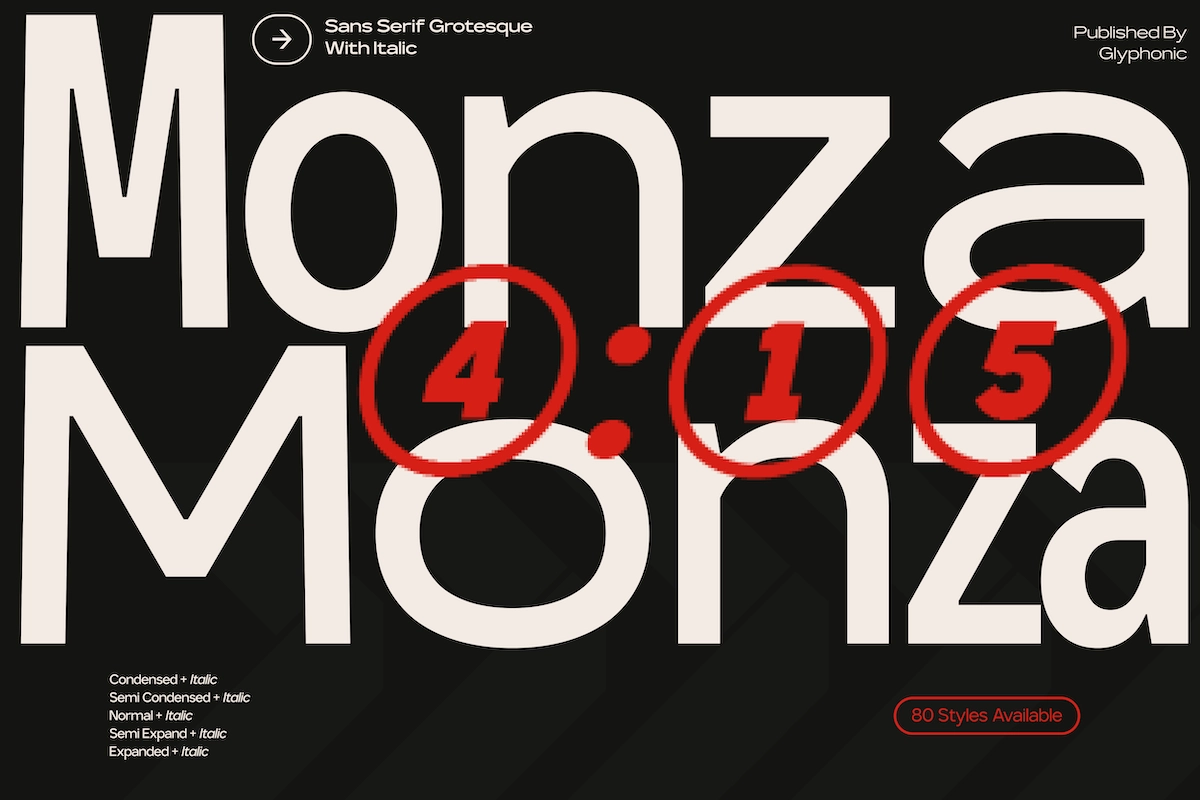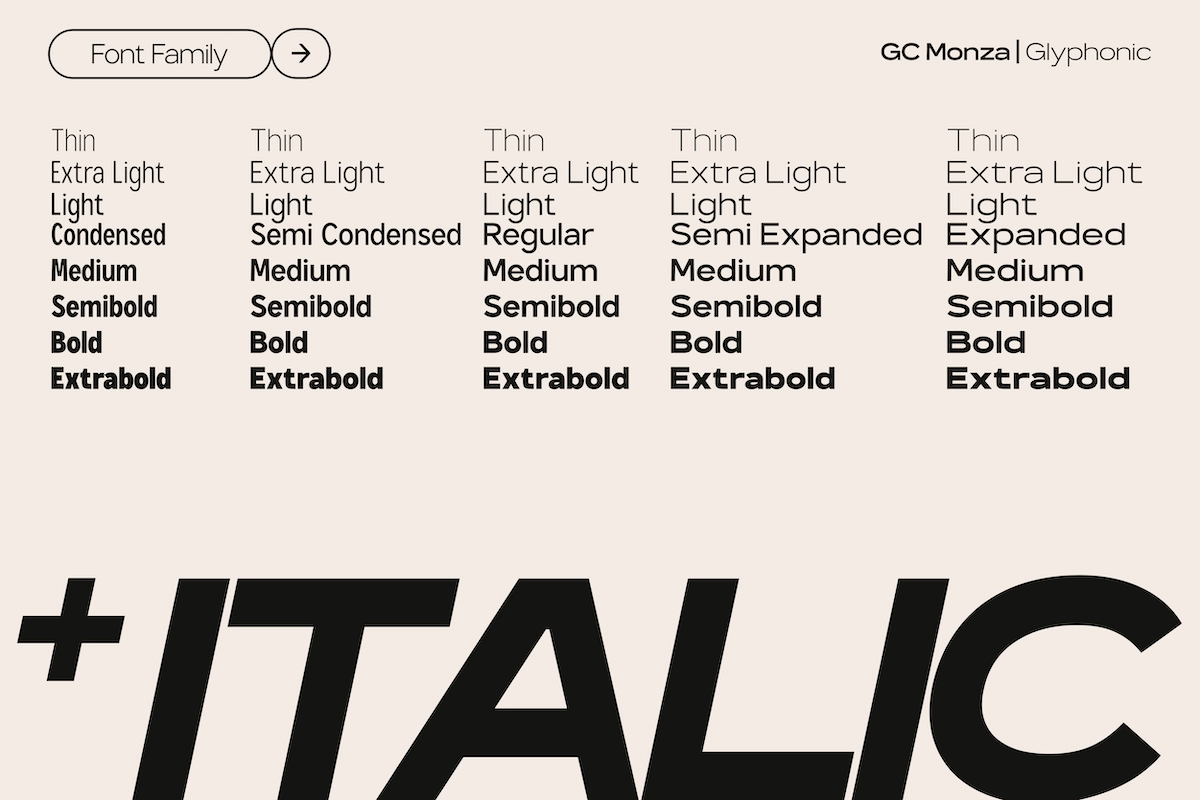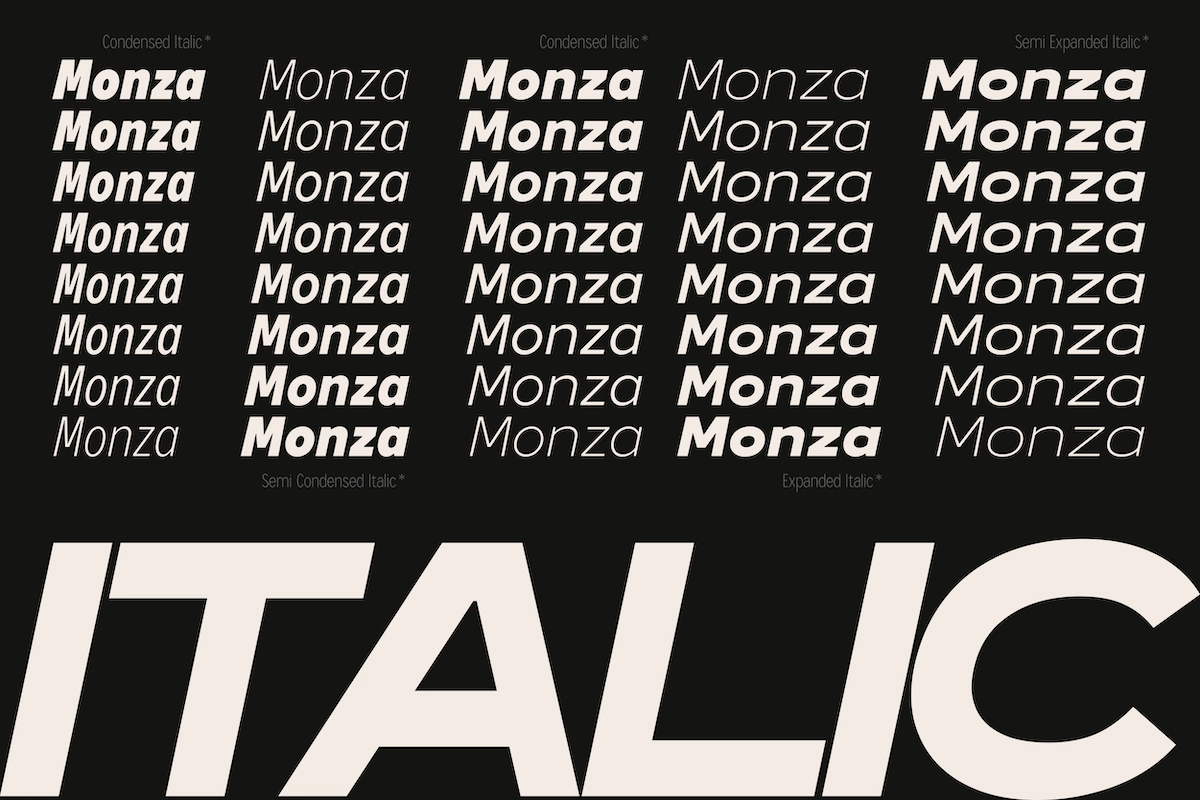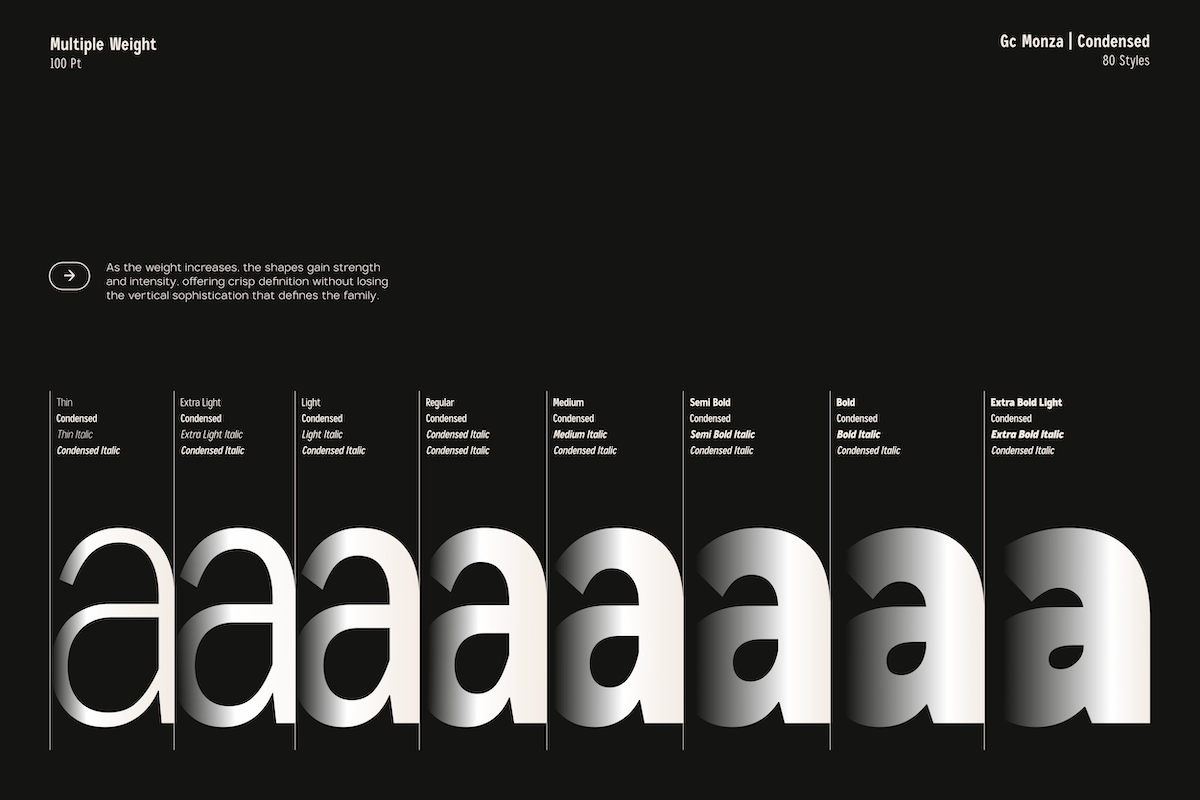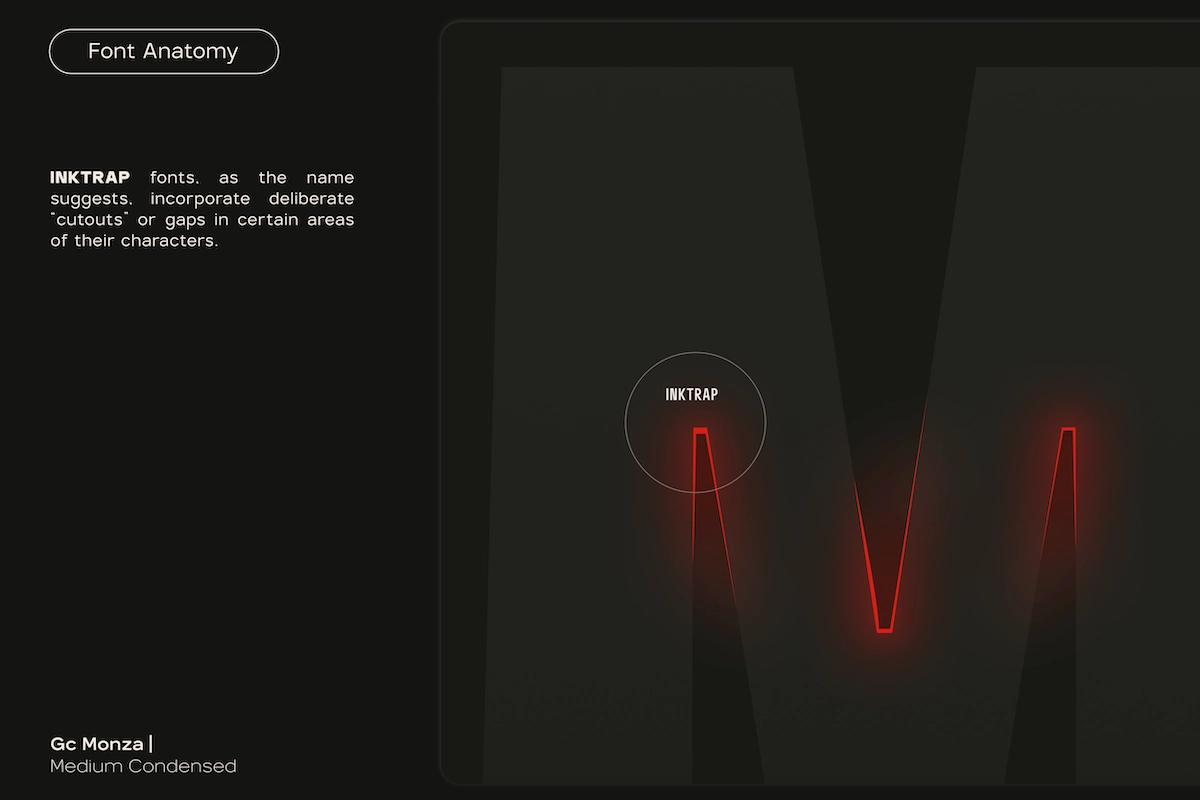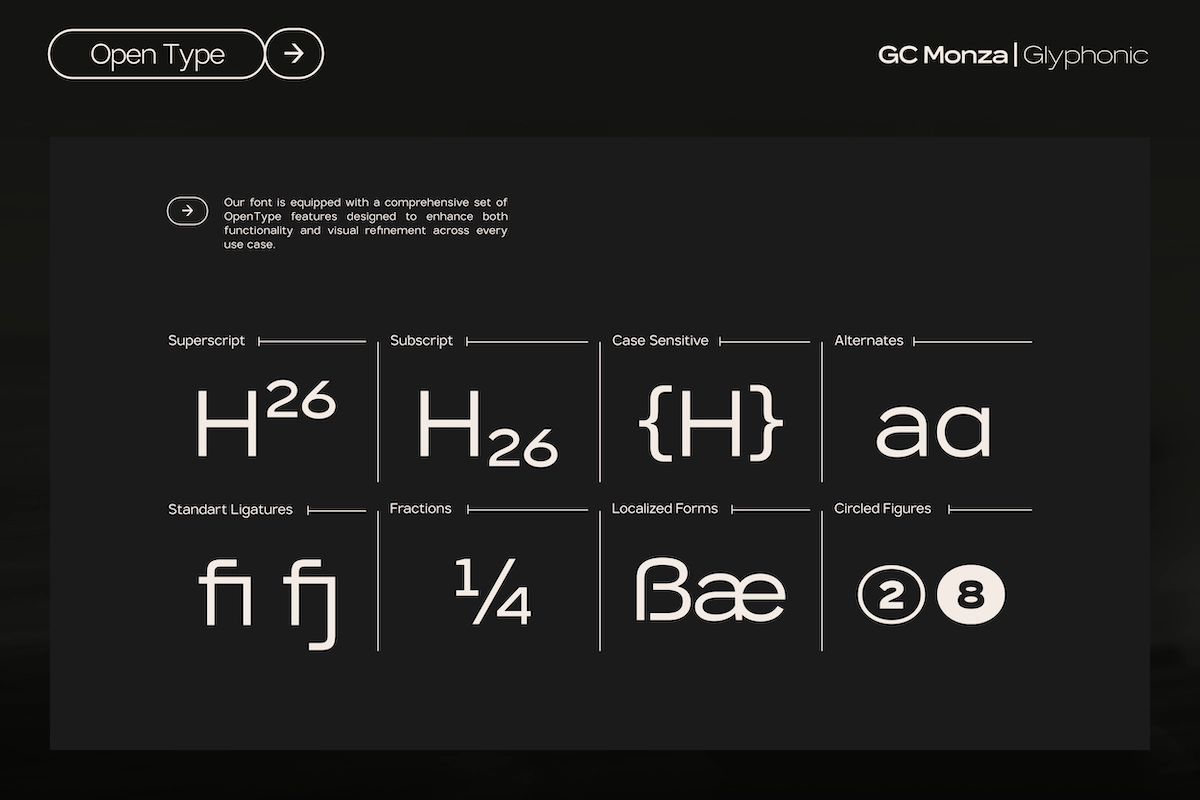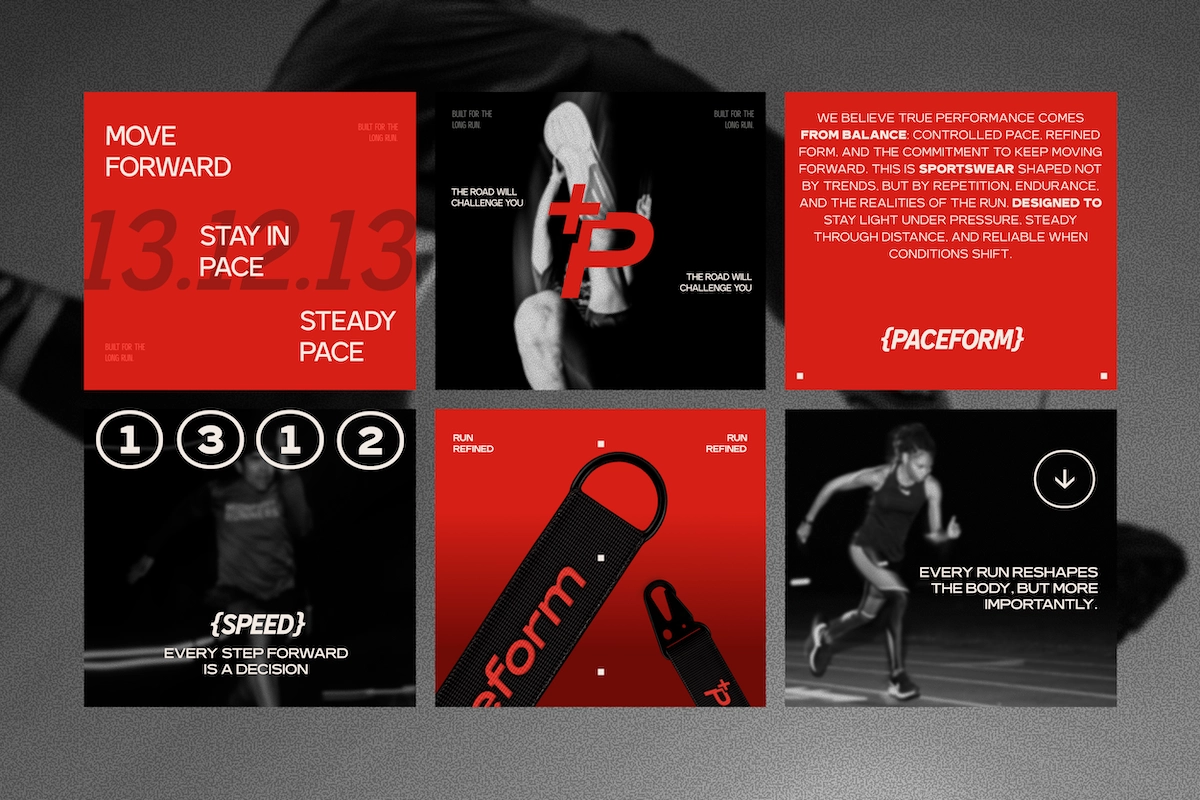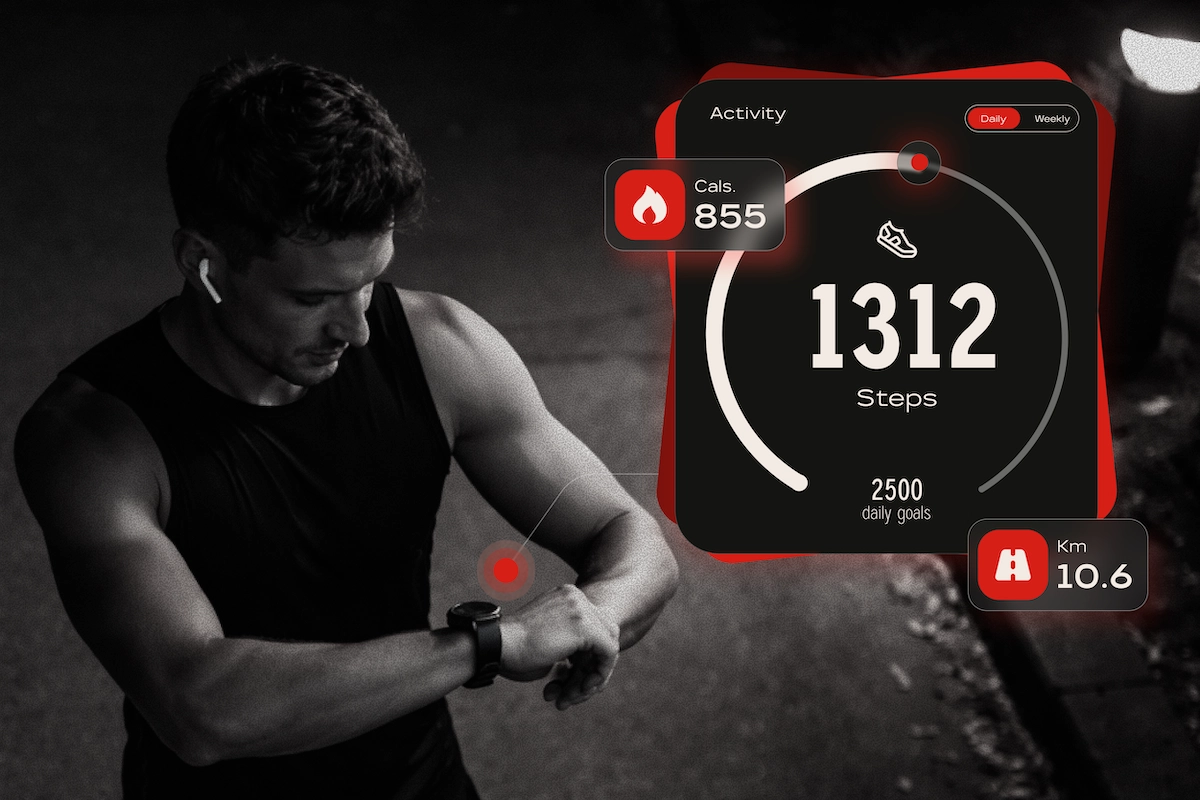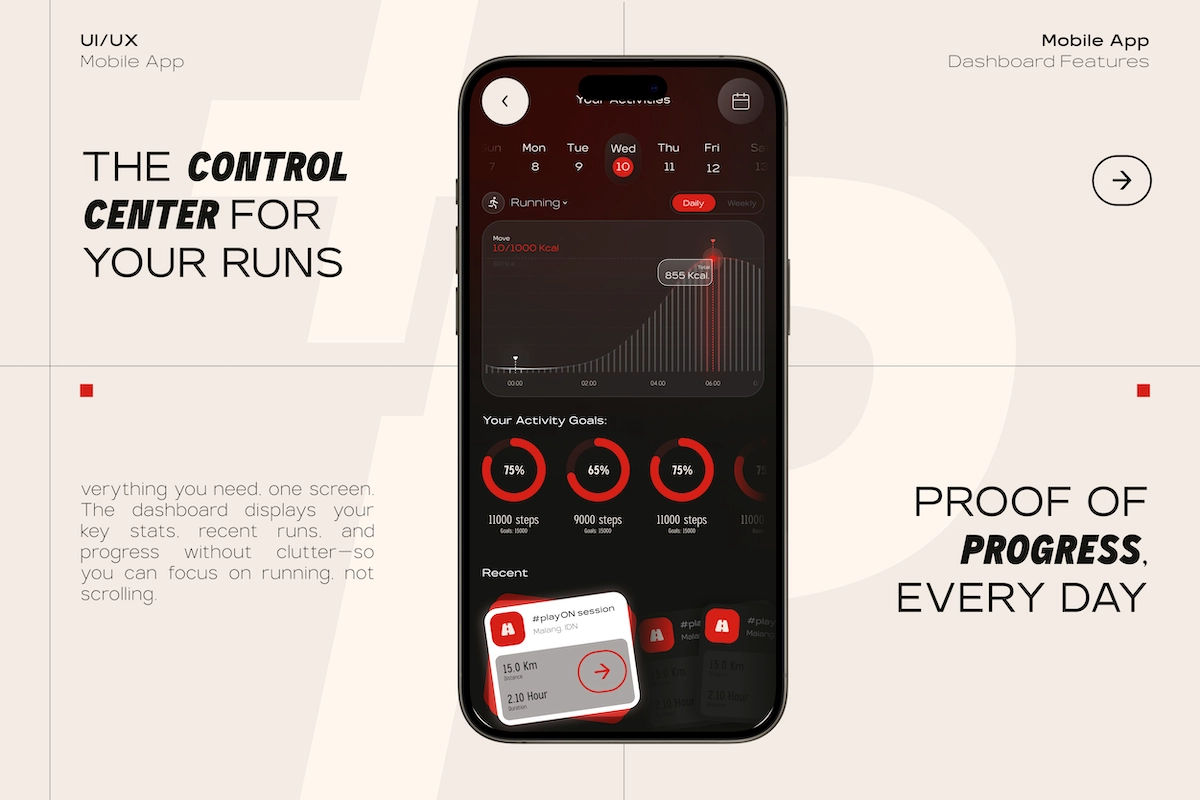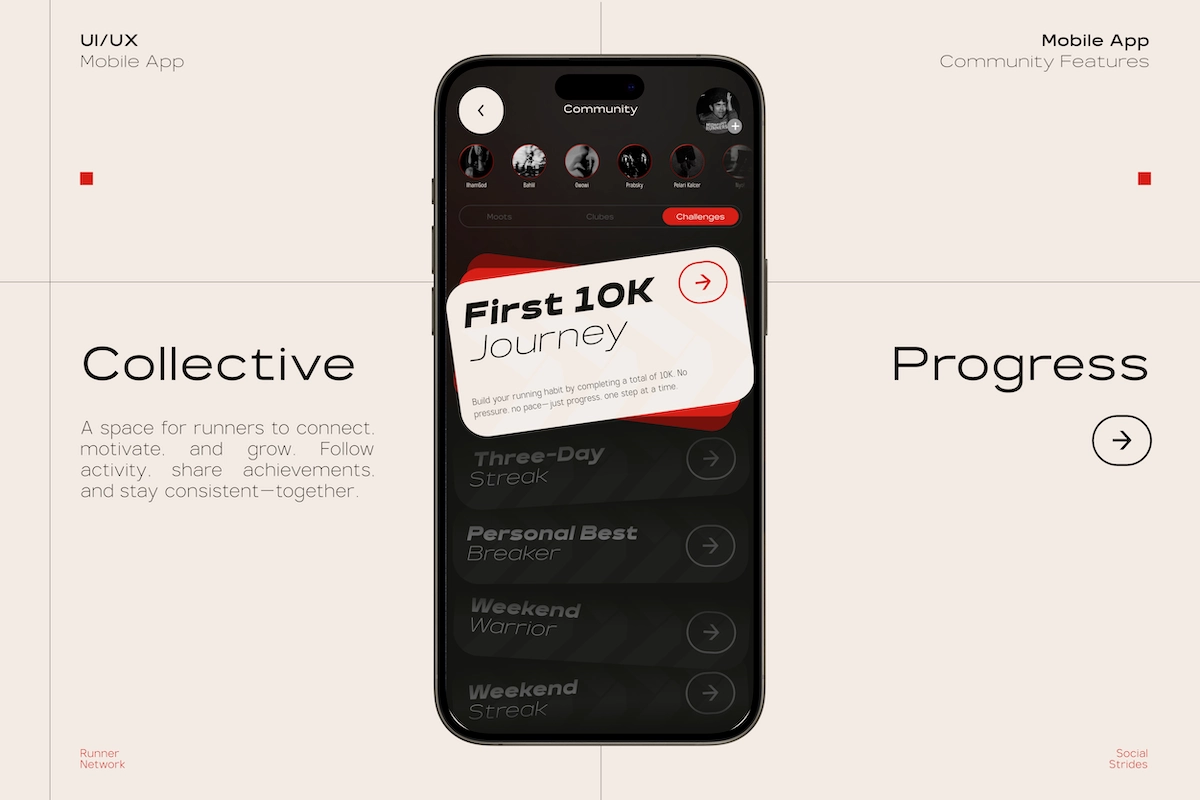
GC Monza - Modern Condensed Sans Serif Family
GC Monza - Modern Condensed Sans Serif Family is a contemporary sans serif typeface designed with precision, versatility, and a strong modern identity. Built on a refined structural system, the font balances clean geometry with subtle complexity, creating a distinctive typographic voice that feels both technical and expressive. Its confident strokes and carefully calculated proportions deliver excellent clarity while maintaining a sophisticated visual character.
Designed for modern branding and editorial systems, GC Monza performs seamlessly across corporate identity, packaging, UI design, digital interfaces, and large-scale typography. The extensive width and weight system allows designers to build powerful typographic hierarchies and adaptable layouts, making it ideal for projects that require consistency, flexibility, and a strong modern presence.
- Complete Type Family with Multiple Widths
- Sans Regular & Italic
- Semi Condensed & Italic
- Condensed & Italic
- Semi Expanded & Italic
- Expanded & Italic
- Multiple Weights Across All Widths
- Uppercase & Lowercase Letters
- Numerals & Punctuation
- Multilingual Support (170+ Languages)